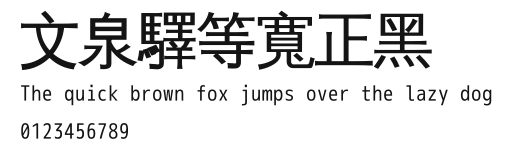
文泉驛等寬正黑 Preview
• Font Name: 文泉驛等寬正黑
• Font Style: 中等
• Full Font Name: 文泉驛等寬正黑
• PostScript Name: WenQuanYiZenHeiMono
• Designer: Qianqian Fang
• Description: 文泉驛正黑
About 文泉驛等寬正黑.ttf
文泉驛等寬正黑.ttf is a modern, elegant sans-serif font designed for ultimate readability and visual harmony. Perfect for branding, headlines, web design, and print materials.